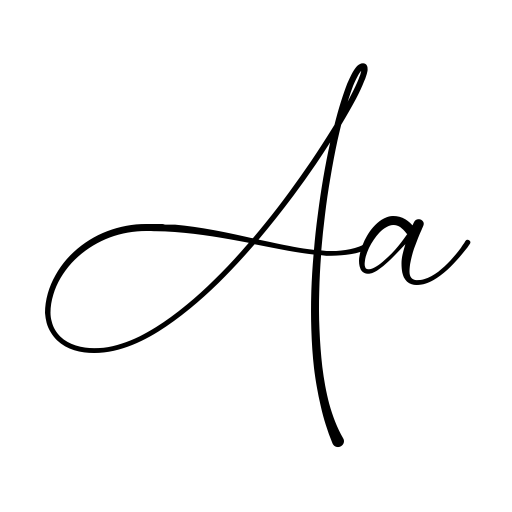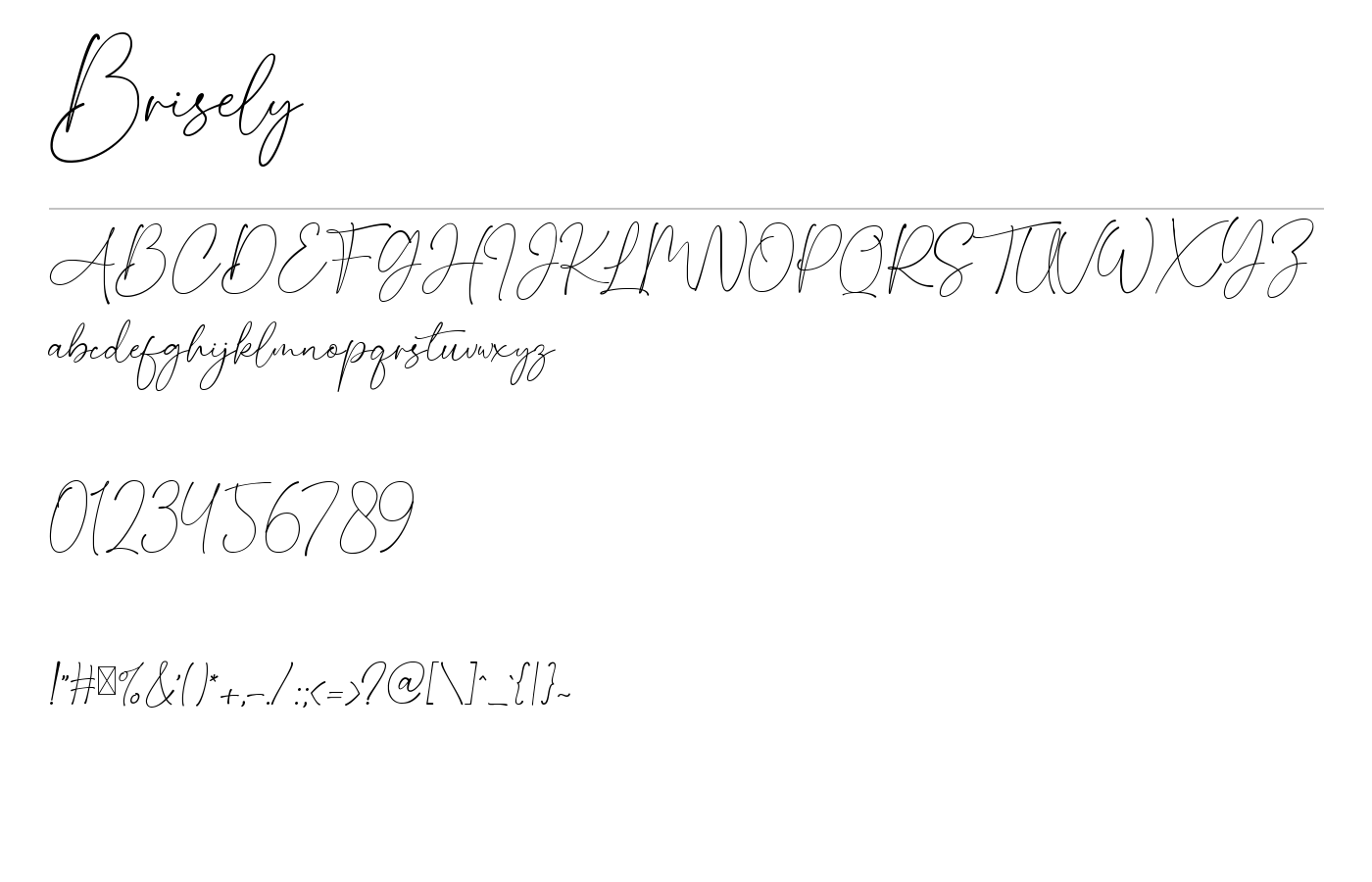
Brisely is a delicate, modern script font with an elegant and airy feel, characterized by its thin, flowing strokes and graceful letterforms. Its light weight and handwritten style make it perfect for creating sophisticated invitations, personal branding, and stylish logos, bringing a touch of refinement and charm to any design. This font works well in contexts where a feminine, intimate, or high-end look is desired.
Brisely Font
About Brisely Font
| Font family | Brisely Font |
| Designer | Teguh Subiyantoro |